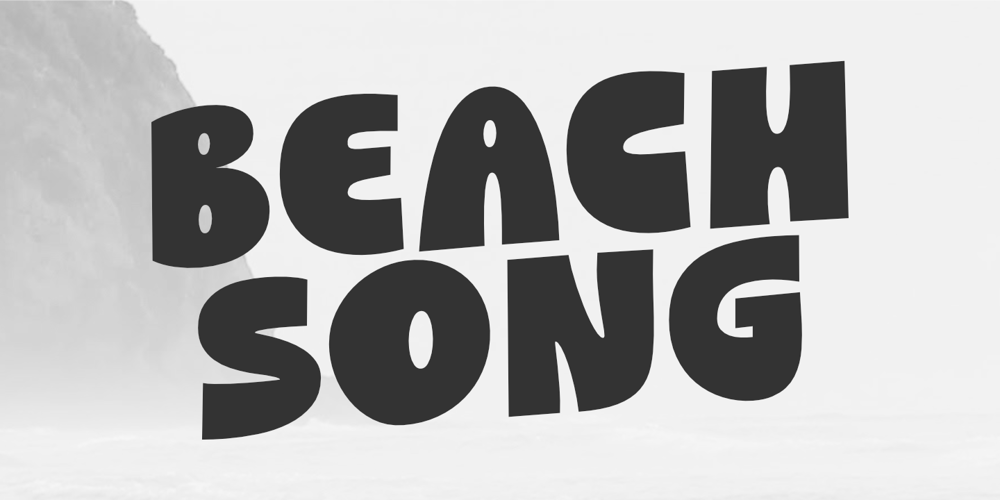
Beach Song Font Family was designed by Nurul Hidayani and published by Olivetype. Beach Song contains 1 styles and family package options. Unleash your creativity with Beach Song, the bold and playful display font that instantly grabs attention and brings a sense of fun to any project! Whether you’re designing eye-catching headlines, unique logos, or captivating movie posters, this versatile typeface adds an energetic vibe that resonates with audiences. With its lively curves and dynamic letterforms, Beach Song is perfect for branding in gaming or vibrant product packaging.Beach Song features :- All Caps Latin- Numbers, symbols, and punctuations- Multilingual Support.- Fully accessible without additional design software- Simple Installations- Works on PC & MacThank You